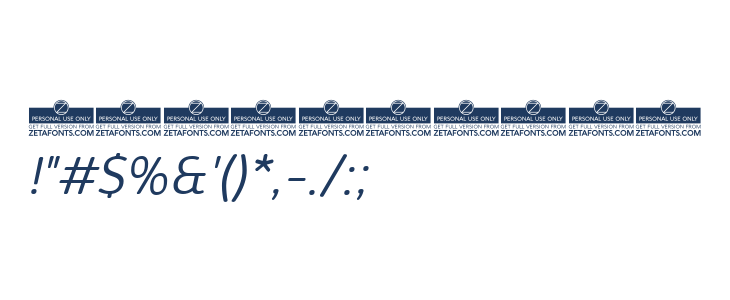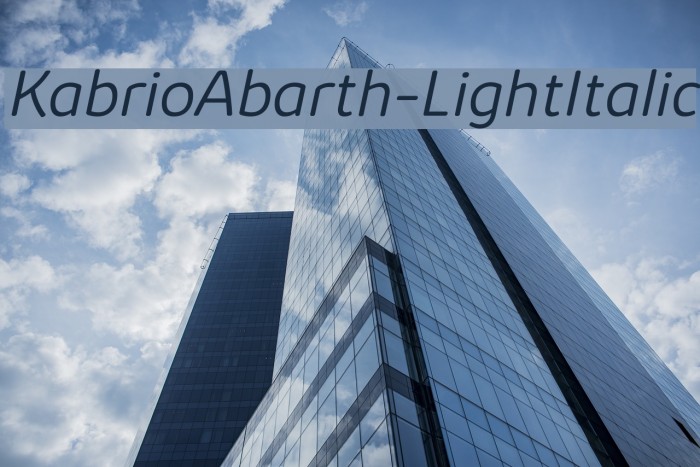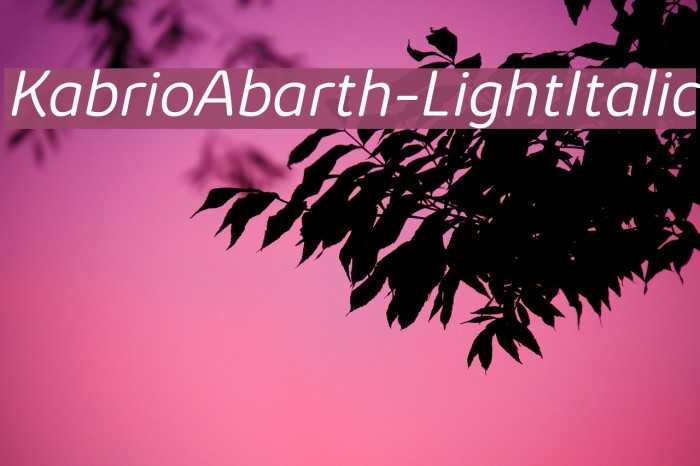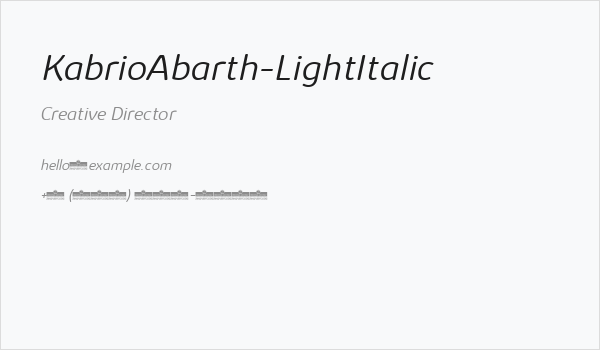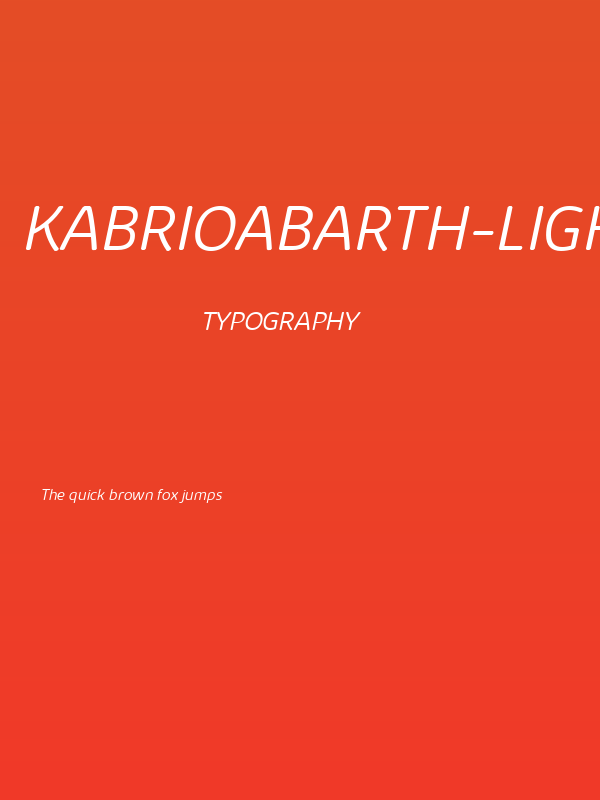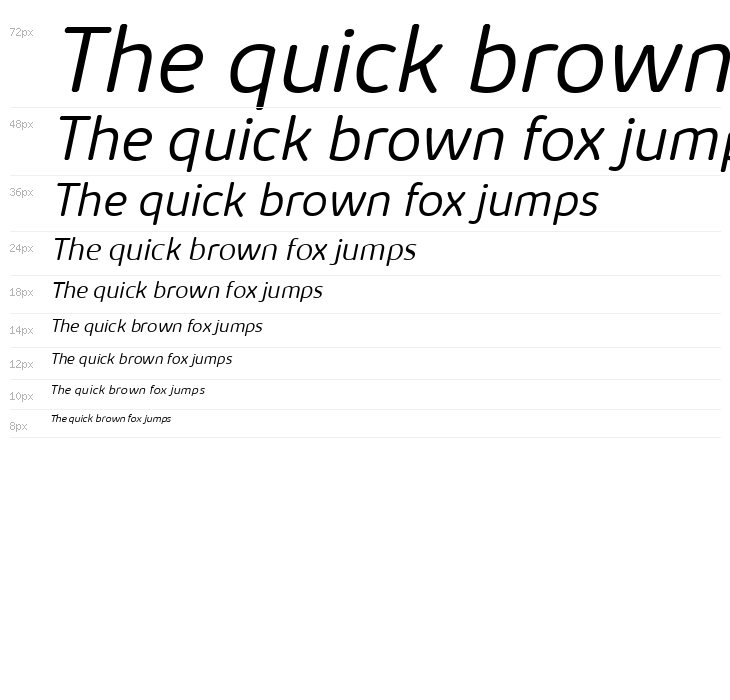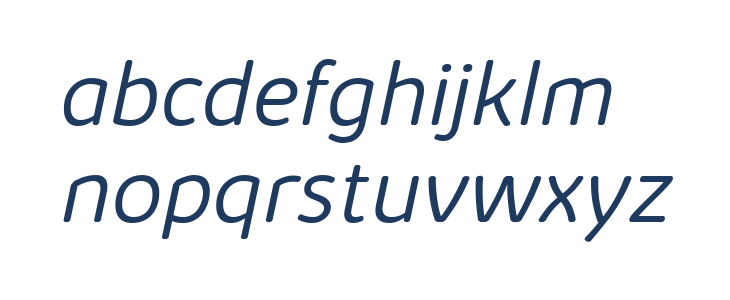
KabrioAbarth-LightItalic Font
KabrioAbarth-LightItalic Description
This font features a sleek and modern design with a slight italic slant, giving it a dynamic and forward-moving appearance. The characters are clean and sans-serif, providing a contemporary look that is both professional and approachable. The strokes are consistent in weight, offering a uniform appearance across all characters. The lowercase letters maintain a smooth and rounded form, while the uppercase letters are slightly more angular, adding a touch of sophistication. The numerals and special characters are designed to match the overall aesthetic, ensuring cohesion throughout the typeface.
| Proposed Projects | Ideal for branding, advertising, and digital media projects that require a modern and professional touch. |